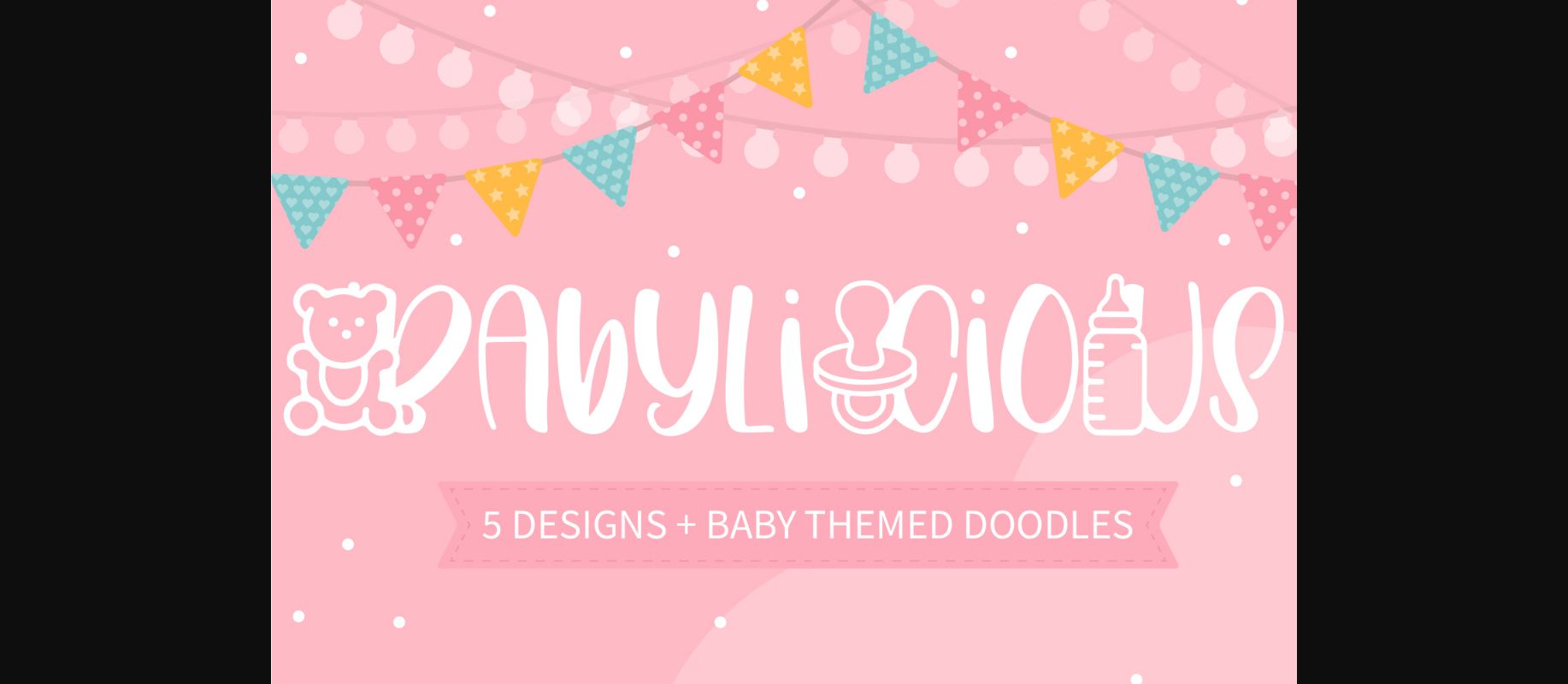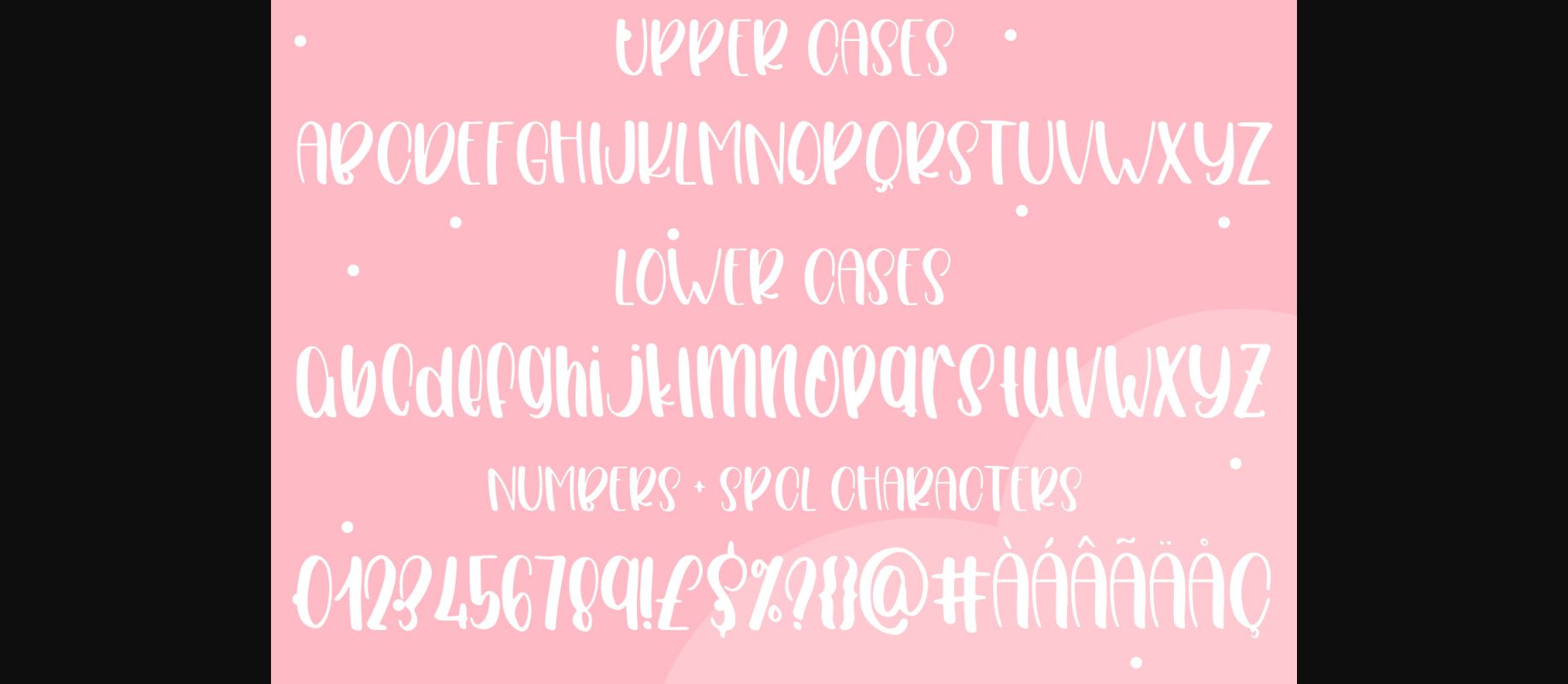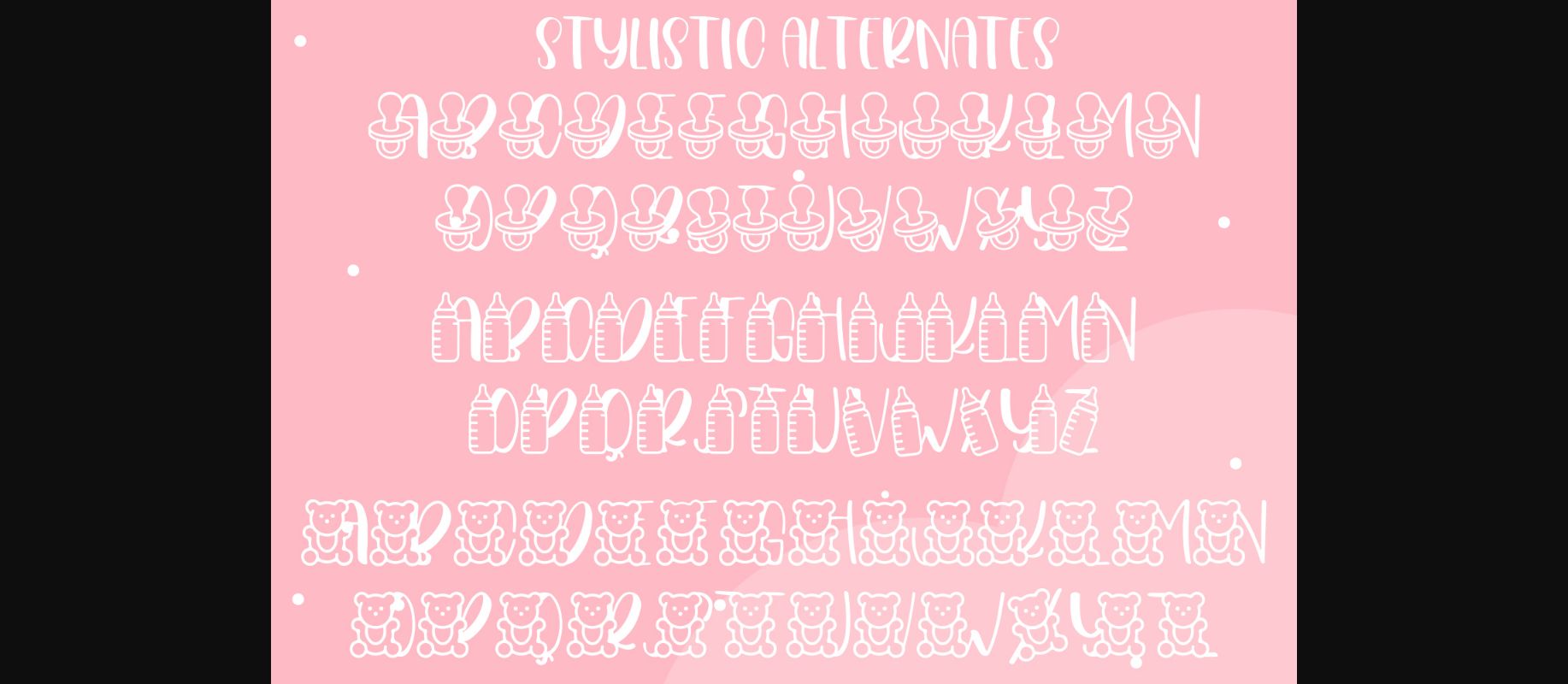
About Babylicious Font
Babylicious is a cute and fun decorative font. It embodies playfulness and authenticity and is the perfect choice for any children activity or school project. Add this chunky lettered font to your designs and notice how it makes them come alive!